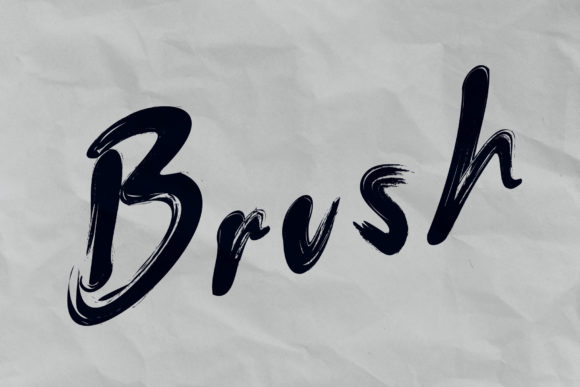
Create Font: Elevate Your Designs with a Dramatic Display Font
In the world of design, typography plays a crucial role in conveying messages, evoking emotions, and creating visual impact. When it comes to making a statement, a dramatic display font can be the perfect tool. This is where Create Font comes in – a stunning display font designed to make your design ideas stand out. With its bold and eye-catching style, Create Font is the perfect addition to your projects, guaranteeing to leave a lasting impression.
The Power of Typography: Why Fonts Matter
Typography is an essential element of design, and the right font can make all the difference. A well-chosen font can elevate your design, convey your brand’s personality, and even influence how your message is perceived. In today’s competitive design landscape, it’s crucial to choose fonts that not only look great but also align with your design goals. Create Font is a versatile and attention-grabbing font that’s perfect for designers, crafters, and anyone looking to add a touch of drama to their projects.
Introducing Create Font: A Dramatic Display Font
Create Font is a carefully crafted display font designed to make a statement. Its bold, yet elegant style makes it perfect for a wide range of design applications, from posters and flyers to social media graphics and branding materials. With Create Font, you can add a touch of sophistication and glamour to your designs, making them instantly stand out from the crowd.
Key Features of Create Font
- Unique and eye-catching design: Create Font boasts a distinctive style that’s sure to grab attention and leave a lasting impression.
- High-quality and versatile: This font is perfect for a wide range of design applications, from print to digital media.
- Elegant and sophisticated: Create Font’s bold yet refined style makes it ideal for designs that require a touch of luxury and glamour.
How to Use Create Font in Your Designs
Using Create Font in your designs is easy. Here are a few tips to get you started:
- Headlines and titles: Create Font is perfect for headlines, titles, and other display text. Use it to add emphasis and create visual impact.
- Branding and logos: This font is ideal for creating bold and memorable logos, business cards, and other branding materials.
- Posters and flyers: Create Font can add a touch of drama and excitement to your posters, flyers, and other promotional materials.
- Social media graphics: Use Create Font to create eye-catching social media graphics that stand out in crowded feeds.
Tips for Getting the Most Out of Create Font
To get the most out of Create Font, here are a few tips to keep in mind:
- Experiment with different sizes and colors: Create Font looks great in a variety of sizes and colors. Experiment to find the perfect combination for your design.
- Pair it with complementary fonts: Create Font pairs well with a range of fonts. Try pairing it with a clean sans-serif font for a bold and modern look.
- Use it sparingly: While Create Font is a stunning font, it’s best used sparingly. Use it to add emphasis and create visual impact, rather than overwhelming your design.
Create Font is a dramatic display font that’s sure to elevate your designs and make them stand out. With its bold and eye-catching style, this font is perfect for designers, crafters, and anyone looking to add a touch of drama to their projects. Whether you’re creating posters, flyers, social media graphics, or branding materials, Create Font is the perfect choice. So why wait? Add Create Font to your projects today and experience the power of dramatic typography for yourself.